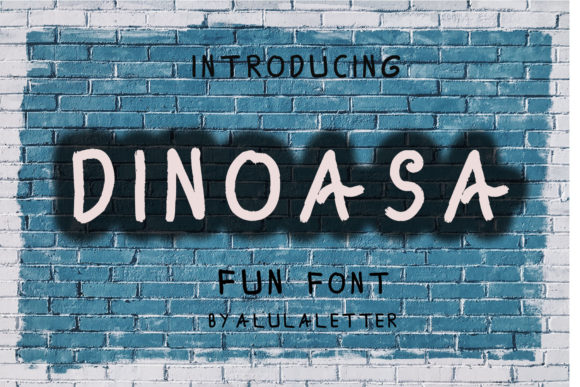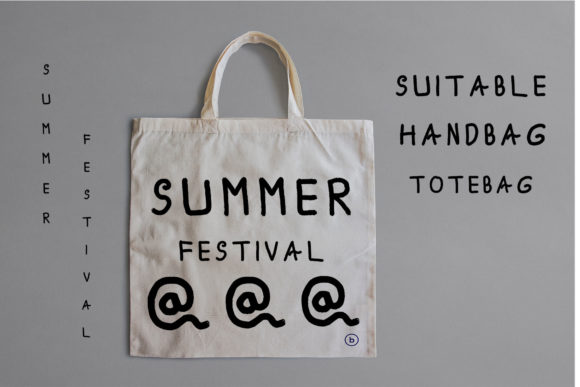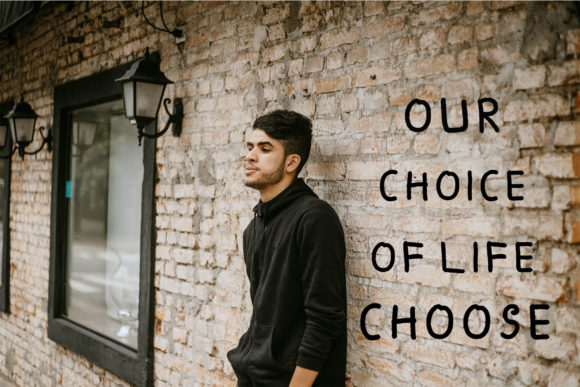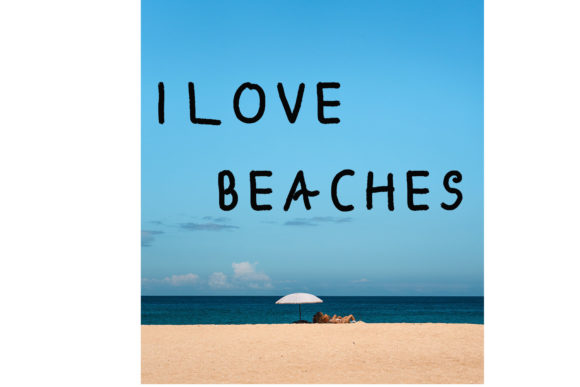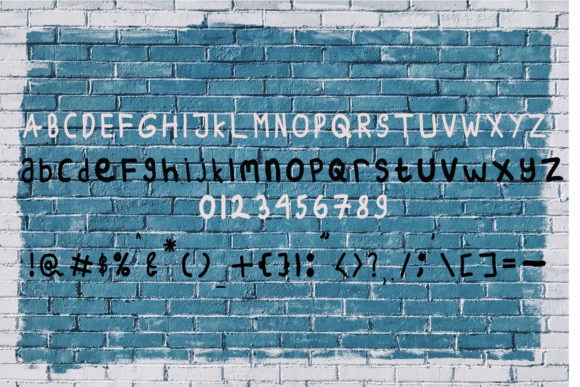
Dinoasa Font
About Dinoasa Font
Dinoasa is a simple and playful script font that will take any design idea to the next level. Ignite your creativity with this casual, yet cute script!